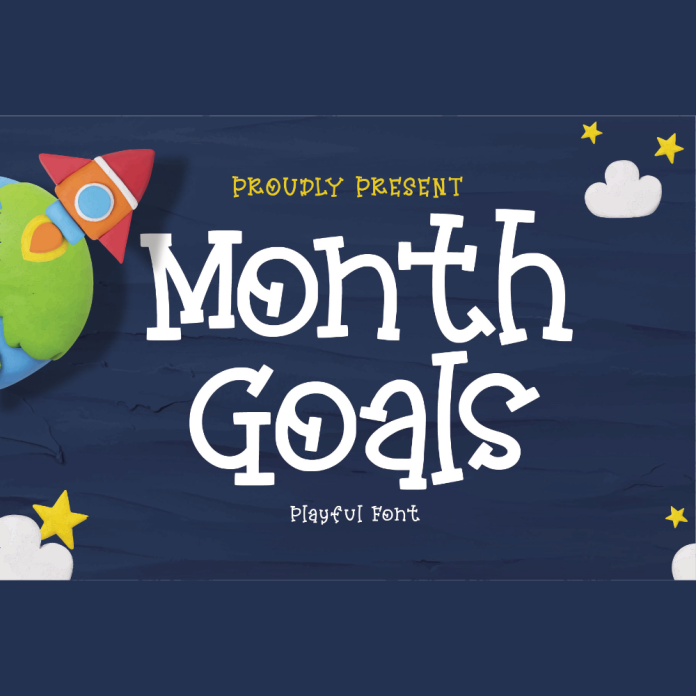
Monthly Goals is a playful font design that combines whimsical and modern elements. Its key features include fun and quirky letter shapes with a touch of sophistication. This font is perfect for creating motivational wall art, inspiring backgrounds, and unique designs that aim to encourage goal-setting and productivity.